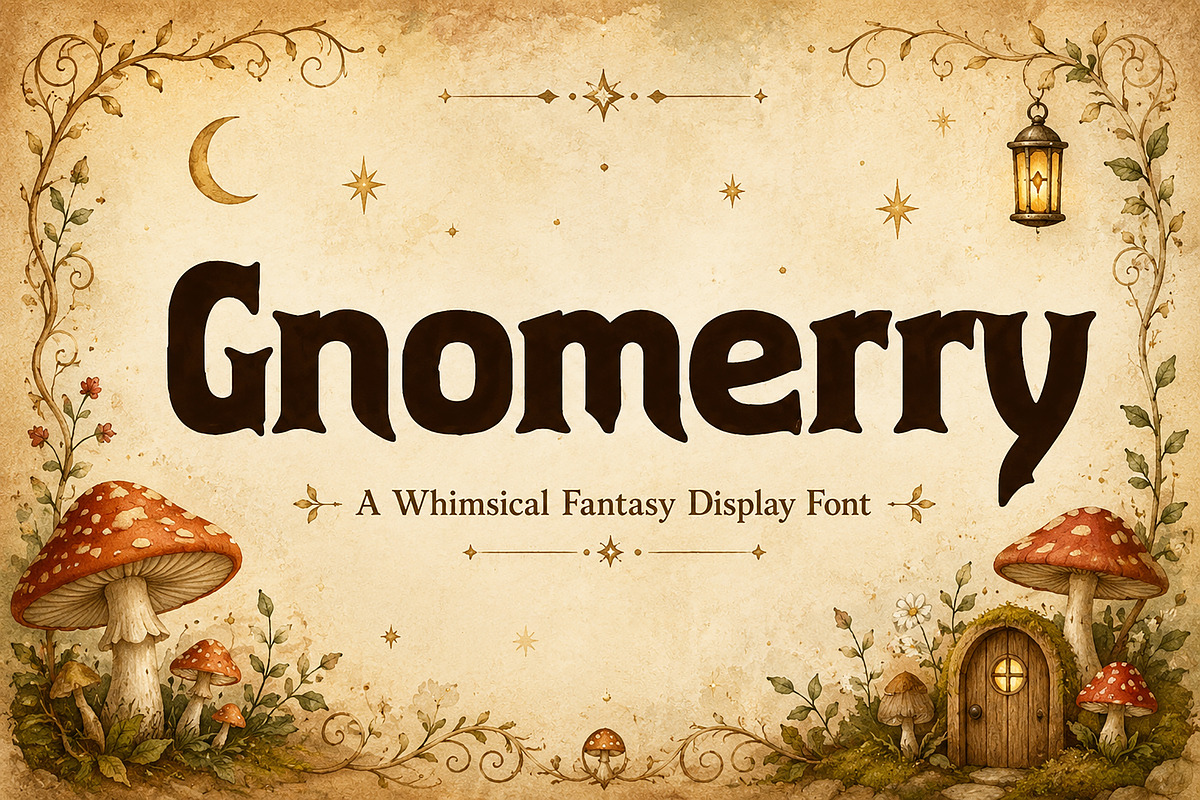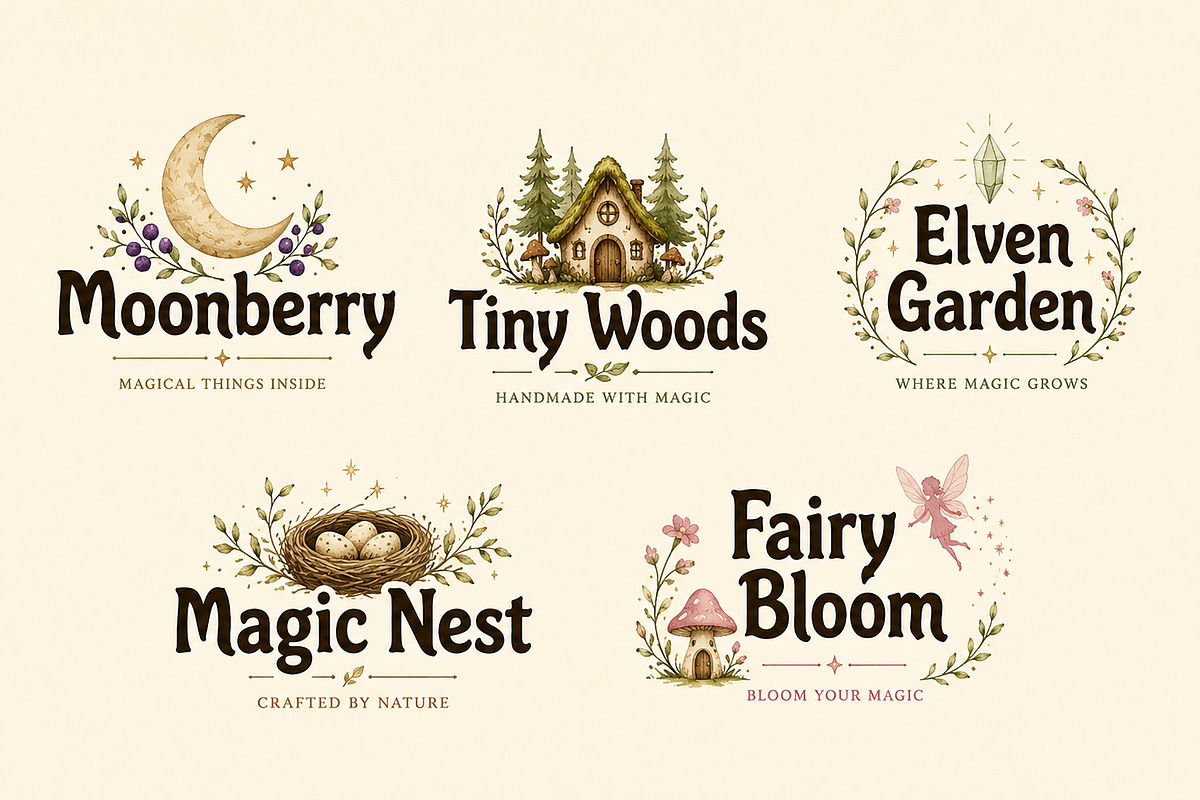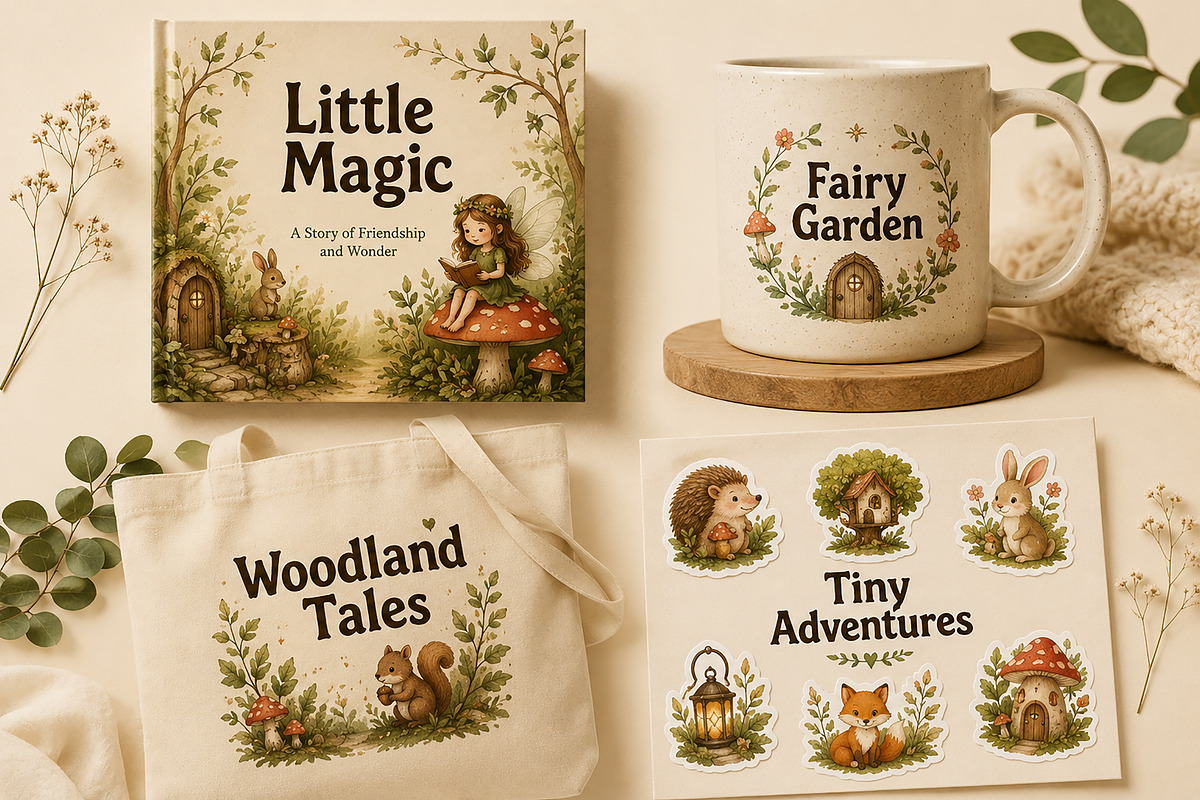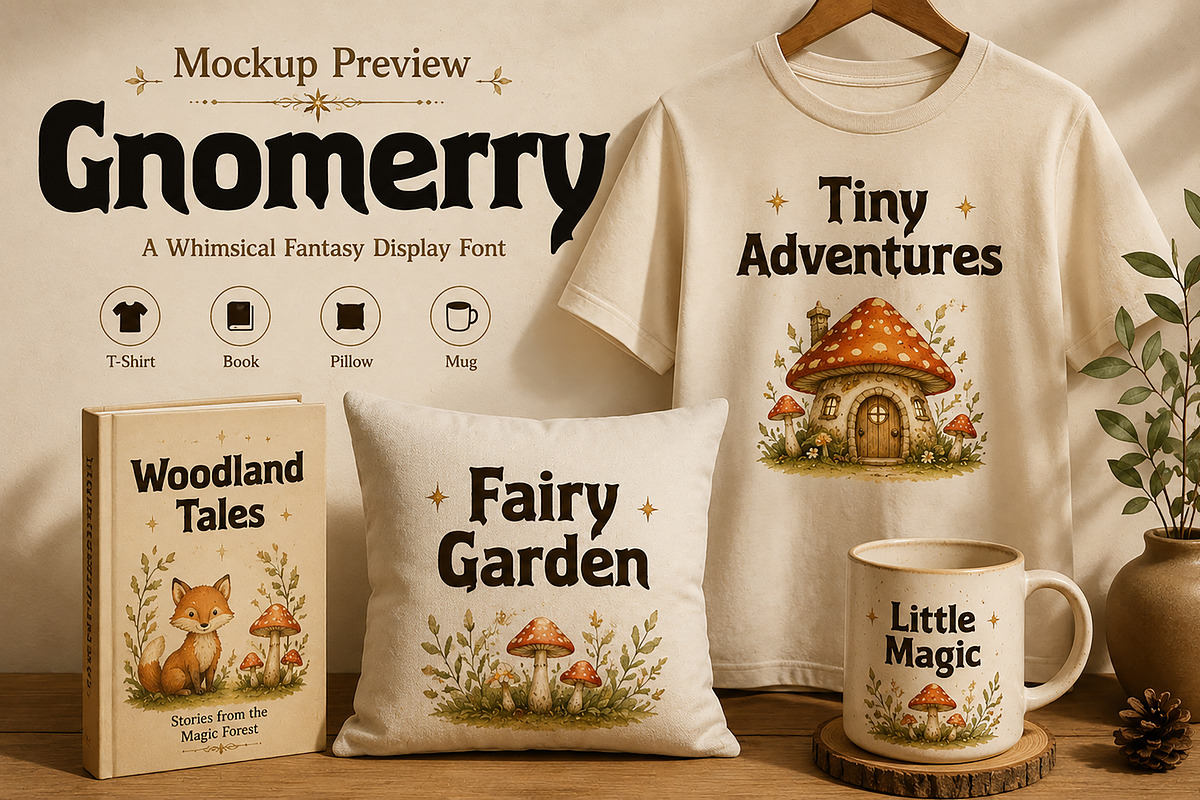
Gnomerry
Gnomerry is a whimsical fantasy display font inspired by enchanted forests, fairy tales, magical cottages, and storybook adventures. With its charming handcrafted letterforms and playful medieval touch, Gnomerry brings a sense of wonder and imagination to every design.
Perfect for children's books, fantasy branding, logos, packaging, invitations, posters, merchandise, stickers, book covers, social media graphics, and creative projects that need a magical and enchanting personality.
Whether you're designing a fairy-tale book cover, a woodland-themed brand, or a magical product collection, Gnomerry adds warmth, charm, and storytelling magic to your work.
Ideal For
• Children's Book Covers
• Fantasy Logos & Branding
• Storybook Titles
• Packaging Design
• Stickers & Crafts
• T-Shirts & Merchandise
• Posters & Quotes
• Invitations & Greeting Cards
• Social Media Graphics
• Handmade Product Branding
• Uppercase Characters
• Lowercase Characters
• Numbers & Punctuation
• Whimsical Fantasy Style
• Storybook-Inspired Letterforms
• Handcrafted Look
• Easy to Read Display Font
• Unique Character Shapes
• Perfect for Creative Branding
Create magical designs filled with imagination, wonder, and storytelling charm with Gnomerry.